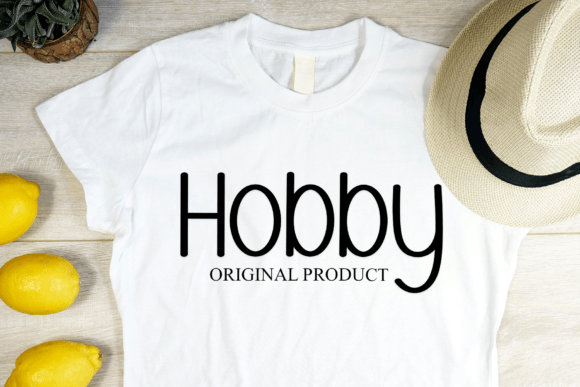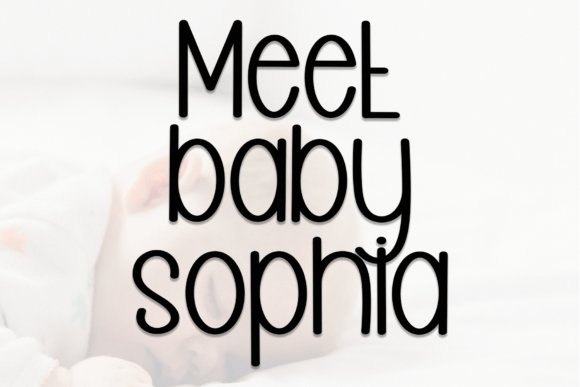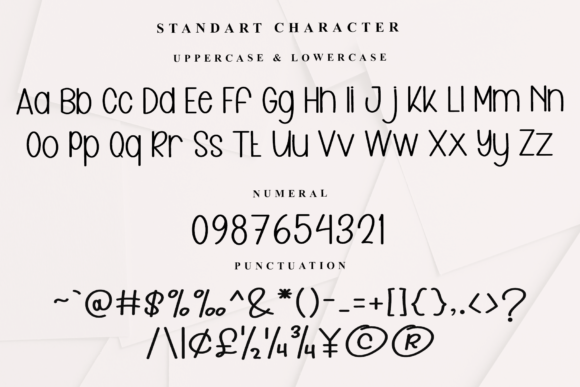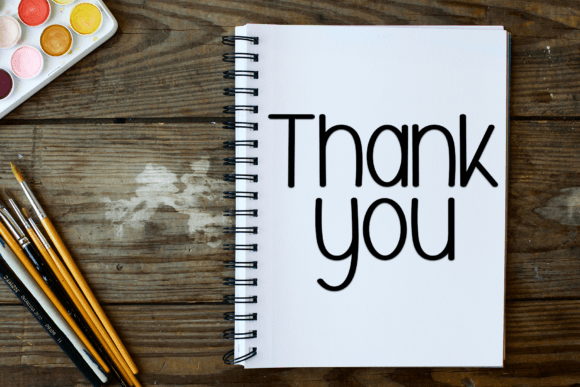
Boho Baby Font
Boho Baby is a delicate, elegant, and timeless font. It has beautiful and well-balanced characters and as a result, it matches a wide pool of designs. Add it to your most creative ideas and notice how it makes them come alive!